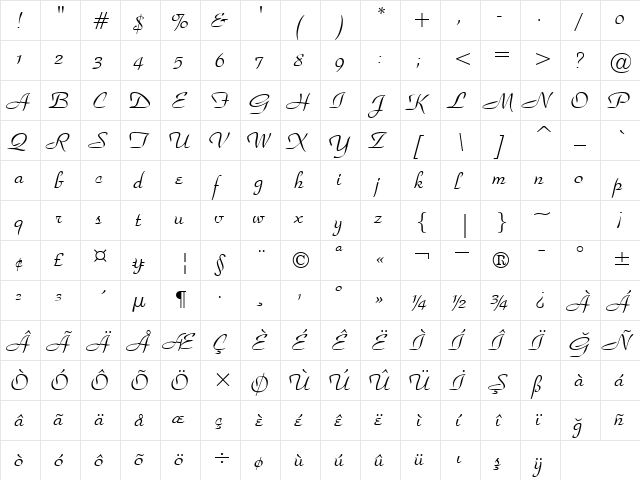
00529 Regular
Design Context for 00529 Typeface
00529 is a composed and adaptable typeface that performs quietly and consistently across a wide range of design contexts.